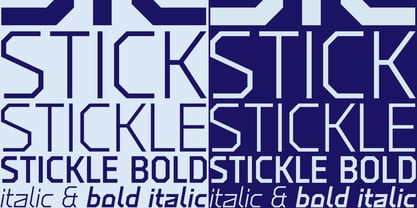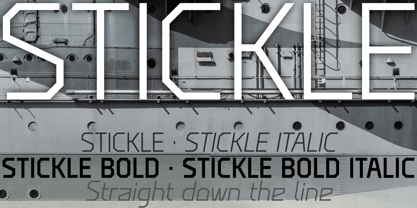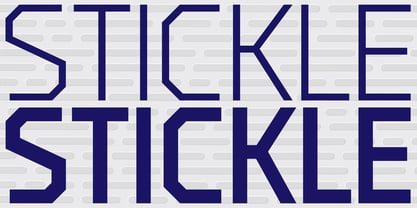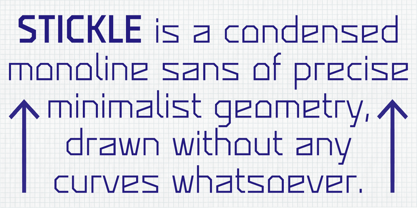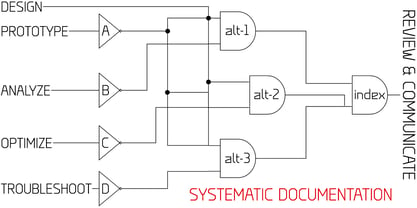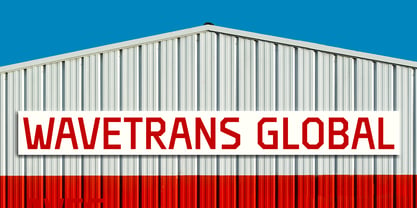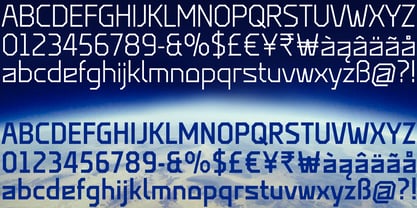
Stickle
by K-Type
The Stickle Font Family was designed by Keith Bates and published by K-Type. Stickle contains 4 styles and family package options. More about this family
Stickle is a condensed monoline sans serif typeface characterized by its precise, minimalist geometry, crafted without any curves. This design draws inspiration from the experimental and futuristic fonts of early computing, evoking the functional simplicity found in official documents, equipment markings, and engineering diagrams. Each font includes a complete set of Latin Extended-A characters, making it versatile for various applications such as branding, packaging, and user interfaces.